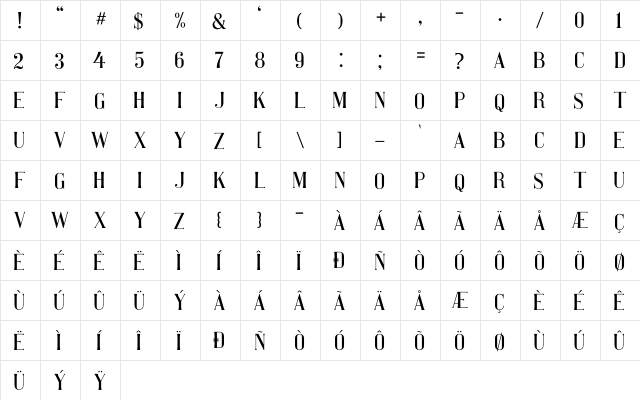
Pretty Women serif Regular
| Designer | Lettersiro 2018 |
Design Context for Pretty Women serif Typeface
Pretty Women serif brings classic typographic sensibility to the table — its serifs and measured letterforms reflect centuries of print heritage.